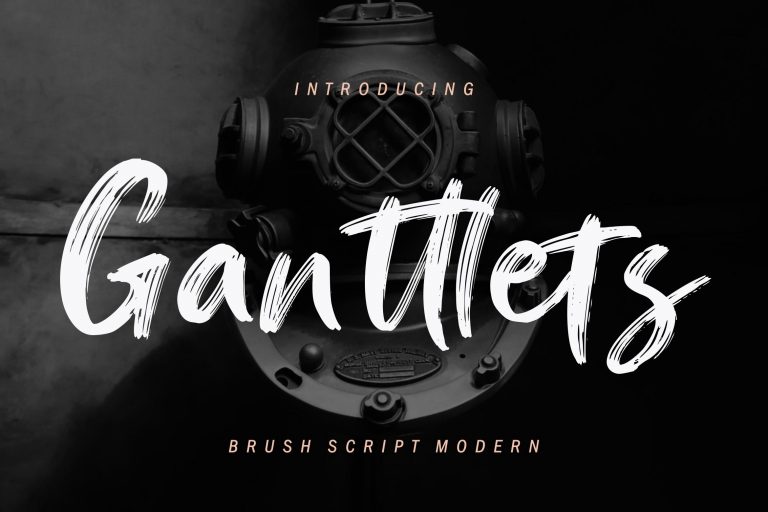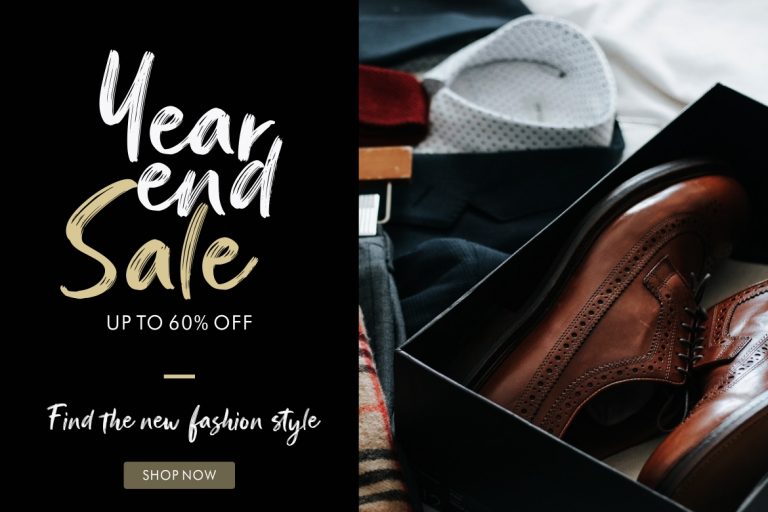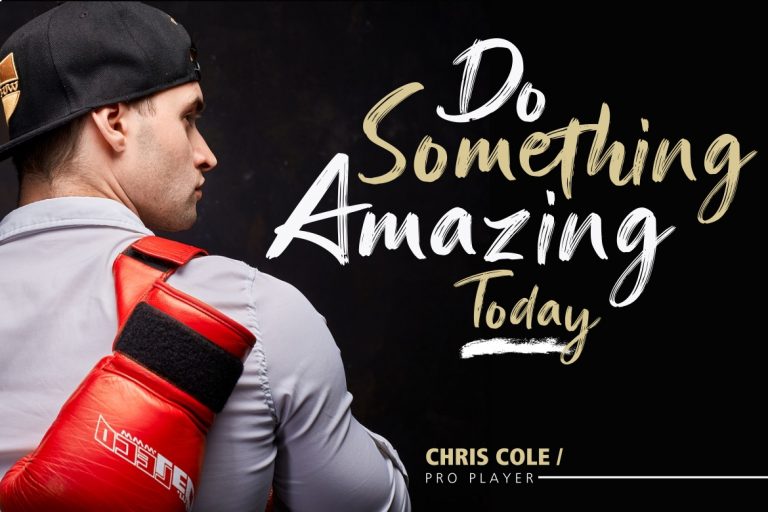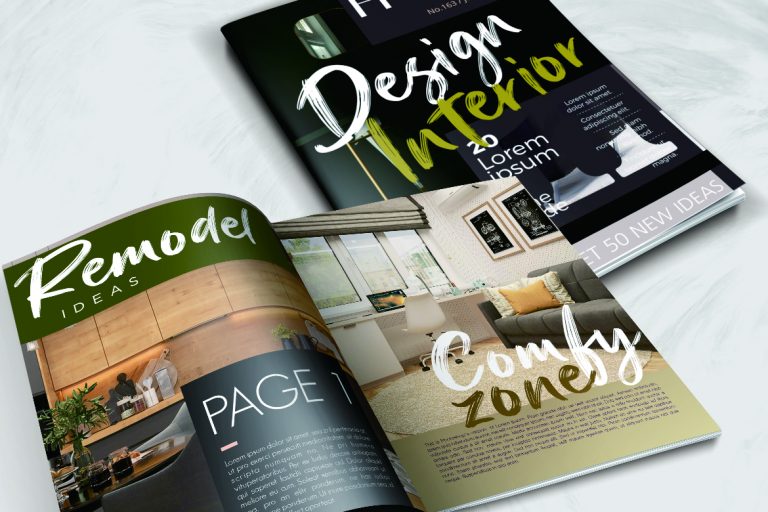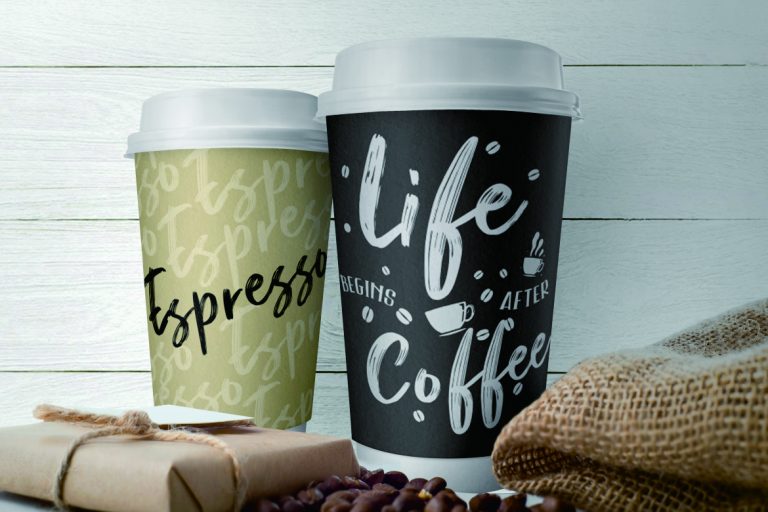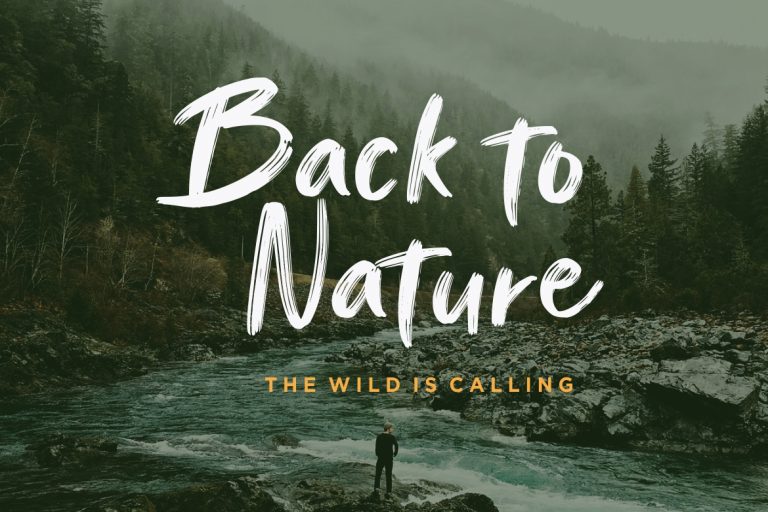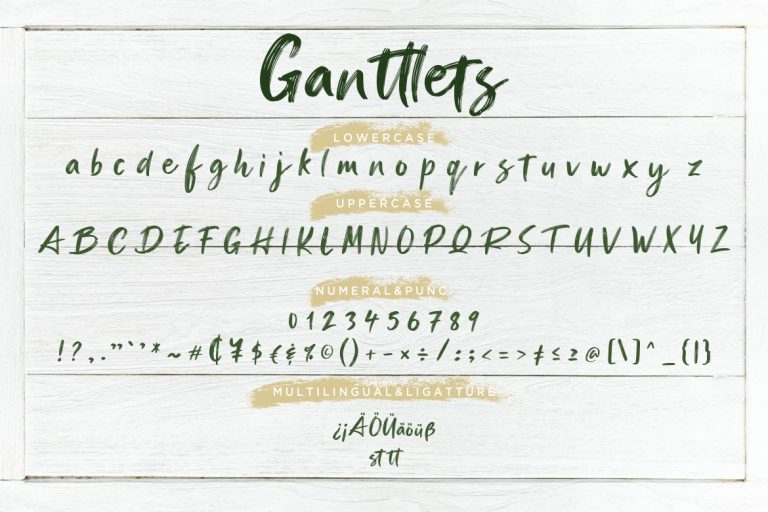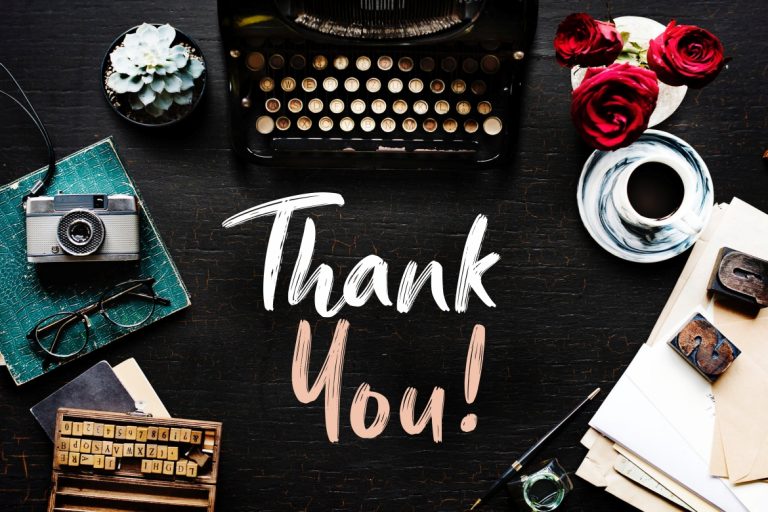
Ganttlets Brush Script
Ganttlets Brush Script is brush script modern font will make your latest project looks awesome and elegant.
Ganttlets Brush Script is perfect for branding projects, logo, wedding designs, social media posts, advertisements, product packaging, product designs, label, photography, watermark, invitation, stationery and any projects that need handwriting taste.
- Fonts include multilingual support for; ä ö ü Ä Ö Ü ß ¿ ¡